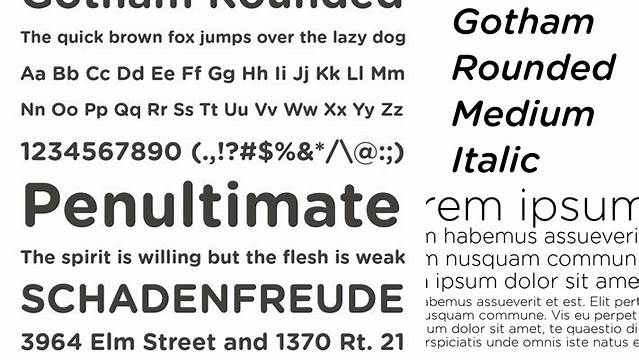
Gotham Rounded Medium Light Font: Free Download Guide
If you're on the hunt for a modern and versatile font that can elevate your design projects, look no further than Gotham Rounded Medium Light. This font, with its clean lines and friendly curves, has become a favorite among designers and creatives alike. In this comprehensive guide, we'll dive deep into what makes Gotham Rounded Medium Light so special, where you can find it for free, and how to best utilize it in your designs. Guys, get ready to take your typography game to the next level!
Gotham Rounded Medium Light is more than just a font; it's a statement. Its unique blend of geometric precision and soft, rounded edges creates a harmonious balance that is both professional and approachable. This makes it incredibly versatile, suitable for a wide range of applications, from branding and advertising to web design and print materials. Imagine using it for your website's headers, giving a modern yet welcoming feel, or incorporating it into your logo for a clean and memorable brand identity. The possibilities are endless! The font's legibility is another key factor in its popularity. The carefully crafted letterforms ensure that text remains clear and readable, even at smaller sizes. This is particularly important for body text in websites and documents, where readability is paramount. Moreover, the Medium Light weight strikes a sweet spot, providing enough visual presence without being too heavy or overpowering. This subtle elegance makes it a perfect choice for designs that need to convey sophistication and clarity. The design world is constantly evolving, but some fonts manage to stand the test of time. Gotham Rounded Medium Light is undoubtedly one of those fonts. Its timeless appeal lies in its simplicity and versatility. It doesn't adhere to fleeting trends but instead offers a classic aesthetic that will remain relevant for years to come. This makes it a sound investment for any designer or brand looking to establish a lasting visual identity. Whether you're a seasoned designer or just starting out, Gotham Rounded Medium Light is a font that deserves a place in your toolkit. Its versatility, legibility, and timeless appeal make it an invaluable asset for a wide range of projects. So, let's explore where you can find this fantastic font for free and how to make the most of it in your designs.
What Makes Gotham Rounded Medium Light Font Special?
So, what exactly makes Gotham Rounded Medium Light so special? There are several factors that contribute to its widespread popularity and make it a standout choice for designers. First and foremost, its design is incredibly versatile. The rounded edges give it a friendly and approachable feel, while the clean, geometric lines provide a sense of modernity and sophistication. This unique combination makes it suitable for a wide array of projects, from corporate branding to creative marketing campaigns. Think about the impact of a font that can seamlessly transition from a professional business card to an engaging social media graphic. That's the power of Gotham Rounded Medium Light. Its versatility extends to different media as well. It works beautifully both on screen and in print, ensuring that your message is conveyed clearly and consistently across all platforms. This is crucial for maintaining a cohesive brand identity and delivering a seamless user experience. The font's legibility is another key attribute. The well-defined letterforms and balanced spacing make it easy to read, even in smaller sizes or in dense blocks of text. This is particularly important for websites and mobile apps, where users are often reading on smaller screens. A legible font ensures that your content is accessible and engaging, preventing eye strain and improving comprehension. But the appeal of Gotham Rounded Medium Light goes beyond its technical qualities. It also has a certain aesthetic charm that resonates with designers and audiences alike. Its rounded forms evoke a sense of warmth and friendliness, making it an excellent choice for brands that want to project a welcoming image. At the same time, its clean lines and geometric structure convey professionalism and competence, making it equally suitable for corporate communications and other formal applications. The font's neutrality is another advantage. It doesn't impose a strong personality or style, which means it can easily adapt to different design contexts and complement a wide range of visual elements. This makes it a versatile tool for creating harmonious and visually appealing designs. You can pair it with bold colors, subtle textures, or intricate illustrations, and it will always feel like a natural fit. In short, Gotham Rounded Medium Light is special because it combines versatility, legibility, aesthetic charm, and neutrality. These qualities make it a go-to font for designers who want to create modern, engaging, and effective visual communications.
How to Use Gotham Rounded Medium Light in Your Designs
Okay, you've got your hands on a font that captures the essence of Gotham Rounded Medium Light. Now, the fun begins: using it in your designs! The key to making the most of this versatile font is understanding its strengths and applying it thoughtfully. First and foremost, consider the overall tone and message of your design. Gotham Rounded Medium Light is a fantastic choice for projects that need to convey a sense of modernity, clarity, and approachability. It works well for brands that want to project a friendly and professional image. Think about using it for websites, logos, marketing materials, and presentations. It's equally effective in both print and digital media, making it a versatile tool for any designer. When it comes to typography, hierarchy is crucial. Use Gotham Rounded Medium Light strategically to guide the reader's eye and highlight important information. For example, you might use it for headings and subheadings, while using a different font for body text. This creates a visual contrast that makes your design more engaging and easier to read. Pay attention to font size and spacing. Gotham Rounded Medium Light is highly legible, but it's still important to choose a font size that is appropriate for the context. For body text, aim for a size that is comfortable to read on screen or in print. Adjust the letter spacing and line height to ensure that the text is well-spaced and visually appealing. Kerning, the spacing between individual letters, is another important detail to consider. Proper kerning can make a big difference in the overall appearance of your typography. If you're using Gotham Rounded Medium Light in a logo or headline, take the time to fine-tune the kerning to ensure that the letters are perfectly balanced. Color plays a significant role in typography. When using Gotham Rounded Medium Light, choose colors that complement the font's clean and modern aesthetic. Neutral colors, such as grays and whites, can create a sophisticated and understated look. Bolder colors can add energy and vibrancy to your designs. Just be sure to maintain sufficient contrast between the text and the background to ensure legibility. Font pairing is another key aspect of design. Gotham Rounded Medium Light pairs well with a variety of other fonts. For a classic and professional look, consider pairing it with a serif font, such as Times New Roman or Georgia. For a more modern and minimalist look, try pairing it with another sans-serif font, such as Open Sans or Lato. Remember, the goal is to create a harmonious and visually appealing combination that enhances the overall design. Ultimately, the best way to learn how to use Gotham Rounded Medium Light effectively is to experiment and practice. Try using it in different contexts and with different design elements. Pay attention to what works well and what doesn't. Over time, you'll develop a feel for the font's unique qualities and how to leverage them to create stunning designs.
Examples of Effective Use of Gotham Rounded Medium Light
To truly appreciate the versatility and impact of Gotham Rounded Medium Light, let's take a look at some real-world examples of its effective use. By examining how other designers and brands have incorporated this font into their projects, you can gain valuable insights and inspiration for your own work. One of the most recognizable examples is its use in the Obama 2008 presidential campaign. The campaign's design team chose Gotham, the non-rounded predecessor to Gotham Rounded, as the primary font for all campaign materials. Its clean, modern, and approachable style perfectly captured the message of hope and change that resonated with voters. The use of Gotham helped to create a cohesive and impactful visual identity that played a significant role in the campaign's success. This example highlights the power of typography in shaping perceptions and conveying messages. In the corporate world, Gotham Rounded Medium Light has been widely adopted by brands seeking to project a modern and trustworthy image. Tech companies, in particular, often use it in their logos, websites, and marketing materials. Its clean lines and rounded edges convey a sense of innovation and friendliness, making it a perfect choice for businesses that want to connect with their audience on a personal level. Financial institutions and other professional service firms also use Gotham Rounded Medium Light to project a sense of stability and reliability. Its legibility and clarity make it ideal for communicating complex information in a concise and accessible way. This is crucial in industries where trust and transparency are paramount. In the realm of web design, Gotham Rounded Medium Light is a popular choice for headings, body text, and navigation menus. Its legibility and versatility make it well-suited for creating user-friendly interfaces. Websites that use Gotham Rounded Medium Light often have a clean, modern, and professional feel. The font's ability to scale well across different devices and screen sizes is another major advantage. This ensures that the website looks great on everything from desktop computers to smartphones. In the print world, Gotham Rounded Medium Light is often used in brochures, posters, and other marketing materials. Its clean lines and rounded edges make it visually appealing and easy to read. Designers often pair it with bold colors and striking imagery to create eye-catching designs. The font's versatility makes it suitable for a wide range of print applications, from formal business documents to creative marketing collateral. These examples demonstrate the diverse range of applications for Gotham Rounded Medium Light. Whether it's used in a political campaign, a corporate brand identity, a website design, or a print publication, this font consistently delivers a clean, modern, and professional aesthetic. By studying these examples, you can gain a deeper understanding of how to use Gotham Rounded Medium Light effectively in your own designs.
Tips for Choosing the Right Font for Your Project
Choosing the right font for your project can feel like a daunting task, guys, but it's a crucial step in creating a successful design. Typography plays a significant role in conveying your message and shaping the overall look and feel of your work. So, how do you make the right choice? Here are some tips to guide you through the process. First, consider the purpose of your project. What message are you trying to communicate? What is the tone and style you want to convey? A formal document will require a different font than a playful advertisement. Think about the audience you're trying to reach and the context in which your design will be viewed. A clear understanding of your project's goals will help you narrow down your font choices. Legibility is paramount. No matter how beautiful a font may be, it's useless if it's difficult to read. Ensure that the font you choose is legible at the sizes you intend to use it, both on screen and in print. Pay attention to letter spacing, line height, and the overall clarity of the letterforms. Test your font choices with different text samples to ensure that they are readable in various contexts. Think about font pairing. In most designs, you'll need to use more than one font. Choosing fonts that complement each other can create a harmonious and visually appealing design. A common strategy is to pair a serif font with a sans-serif font. However, don't be afraid to experiment with different combinations to find what works best for your project. Use font foundries website or other font-pairing tools for font ideas. Consider the font's personality. Each font has its own unique personality and character. Some fonts are formal and elegant, while others are playful and casual. Choose a font that aligns with the tone and style of your project. If you're designing for a serious and professional brand, a clean and modern font like Gotham Rounded Medium Light might be a good choice. If you're designing for a more creative and whimsical brand, you might opt for a font with more personality. Don't overdo it. It's tempting to use a variety of fonts in your design, but this can often lead to a cluttered and confusing result. In most cases, it's best to stick to a maximum of two or three fonts. This will help to create a cohesive and visually appealing design. Think about font licensing. Before using a font in your project, make sure you have the proper license. Some fonts are free for personal use but require a commercial license for business projects. Using a font without the appropriate license can lead to legal issues. Always check the licensing terms before using a font in your work. Ultimately, the best way to choose the right font for your project is to experiment and practice. Try out different fonts and see how they look in different contexts. Pay attention to the details and learn to trust your eye. With practice, you'll develop a sense for what works well and what doesn't.
In conclusion, guys, Gotham Rounded Medium Light is a fantastic font choice for a wide range of design projects. Its versatility, legibility, and modern aesthetic make it a valuable asset for any designer. While accessing it for free might be tricky due to licensing, exploring similar free alternatives can be a great way to achieve a similar look and feel without compromising on quality or legalities. Remember to always respect font licenses and support the creative community. By understanding its strengths and applying it thoughtfully, you can create visually stunning and effective designs that resonate with your audience. So, go ahead, experiment with typography, and let your creativity shine! Happy designing!